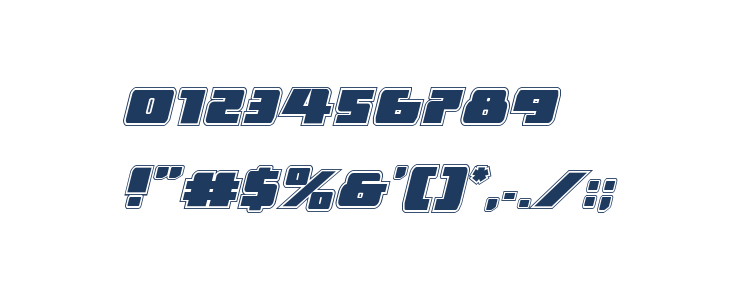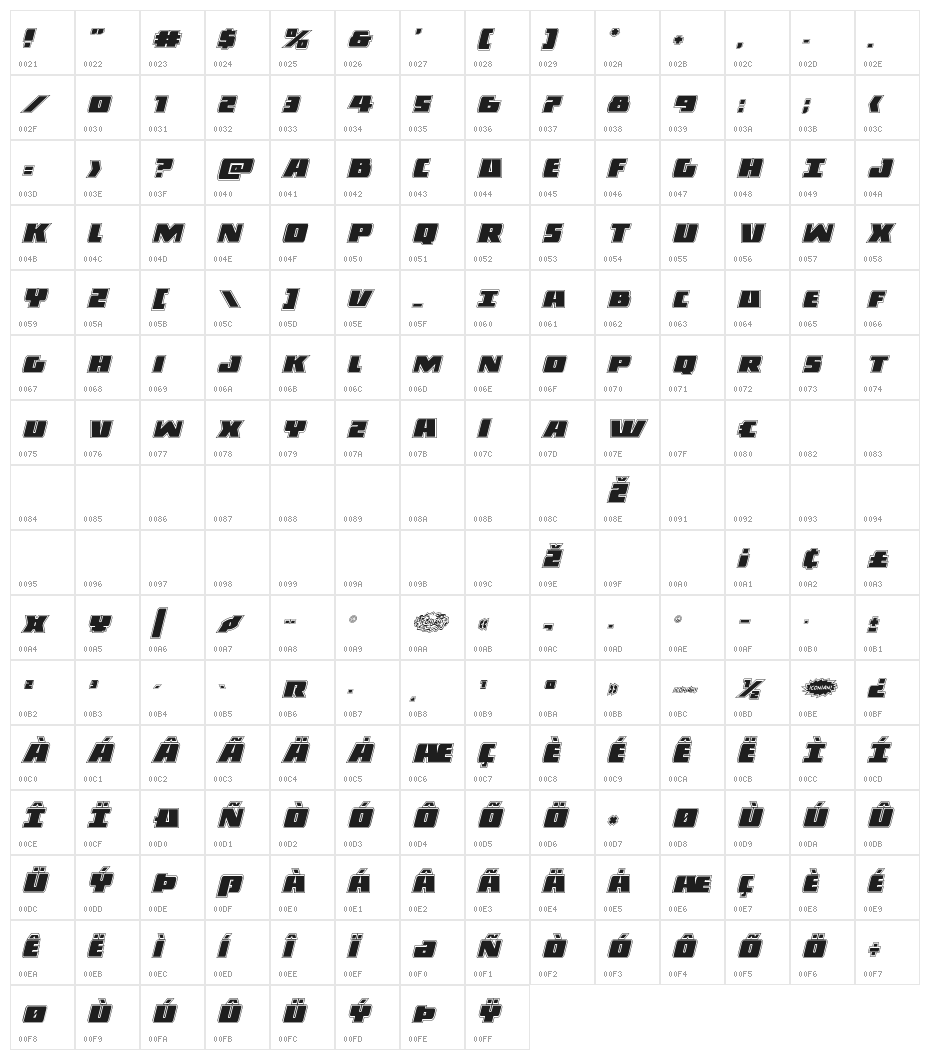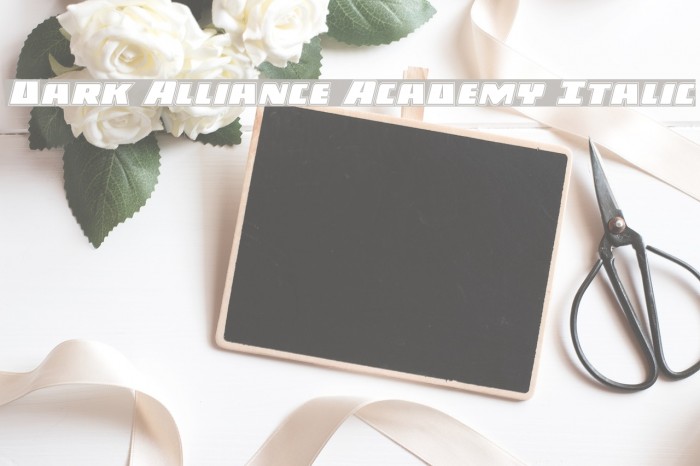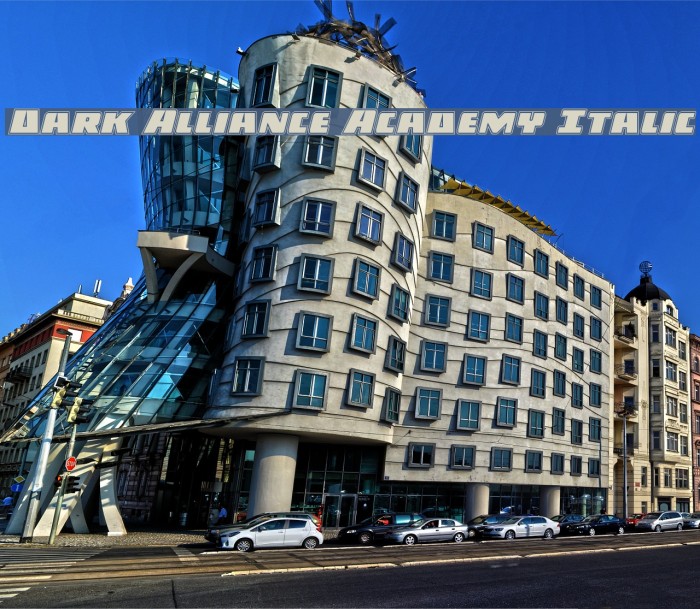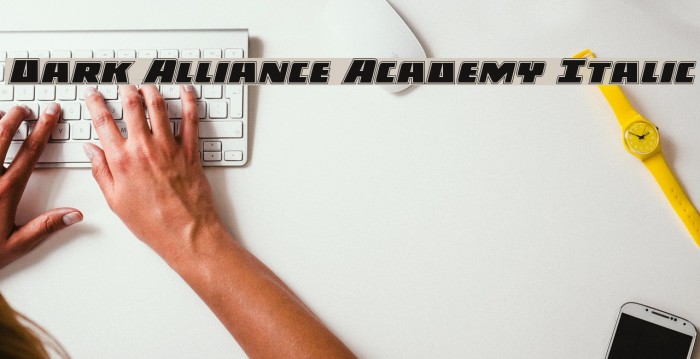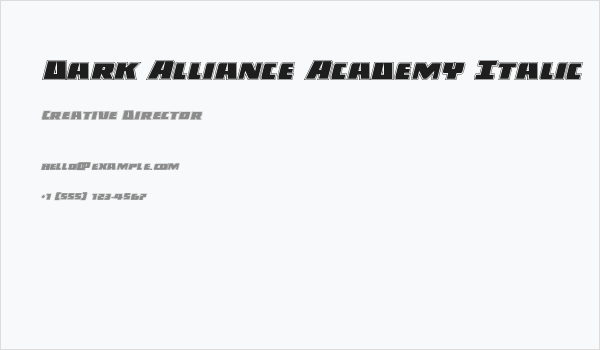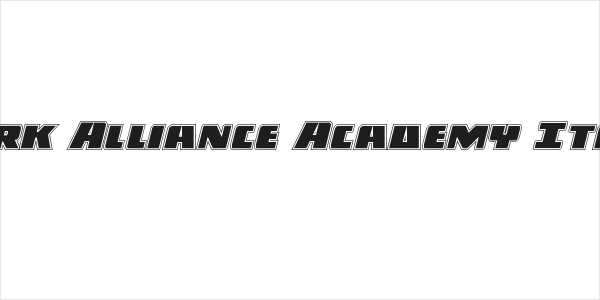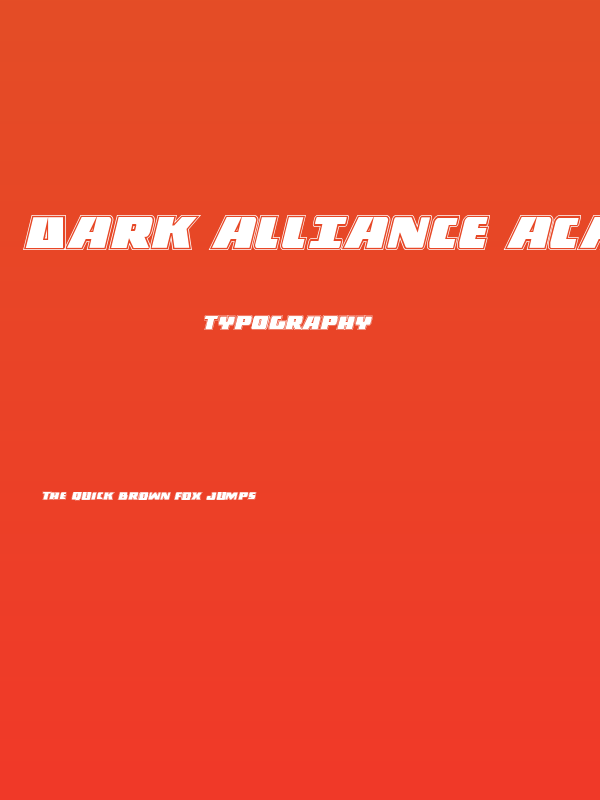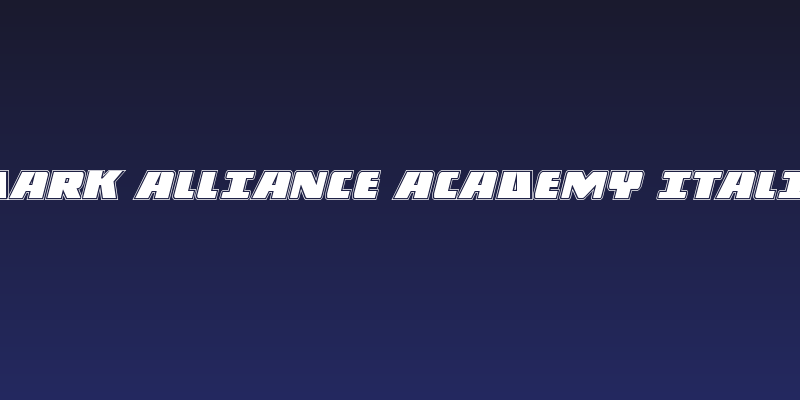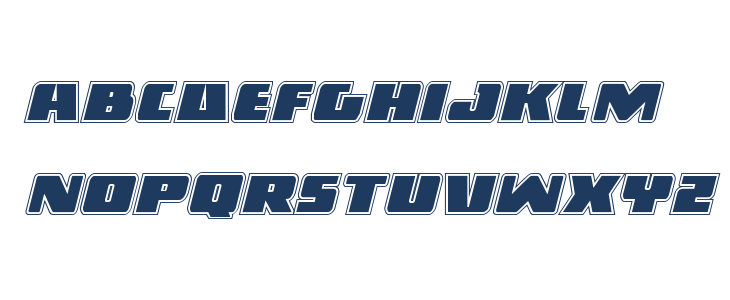
Dark Alliance Academy Italic Font
Dark Alliance Academy Italic Description
This font features a bold and dynamic style with a futuristic and angular design. The characters are outlined with a thick black border, giving them a strong presence. The uppercase and lowercase letters share a consistent geometric form, with sharp angles and a slightly italicized slant that adds a sense of motion. The numbers and special characters maintain the same bold and angular aesthetic, ensuring uniformity across all glyphs. The font's unique style makes it suitable for projects that require a modern and edgy look.
| Proposed Projects | Ideal for video game titles, sci-fi movie posters, tech branding, and sports team logos. |